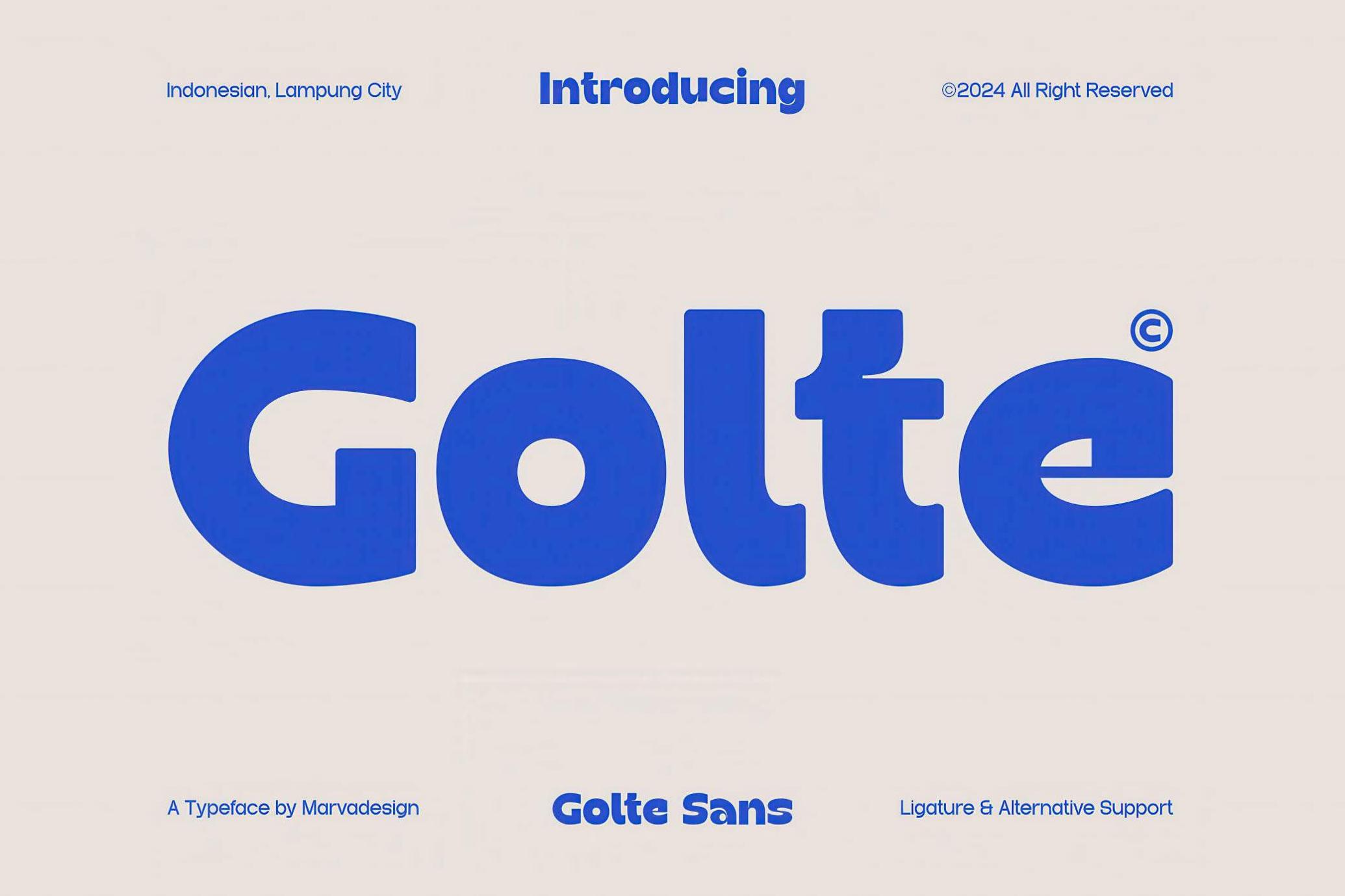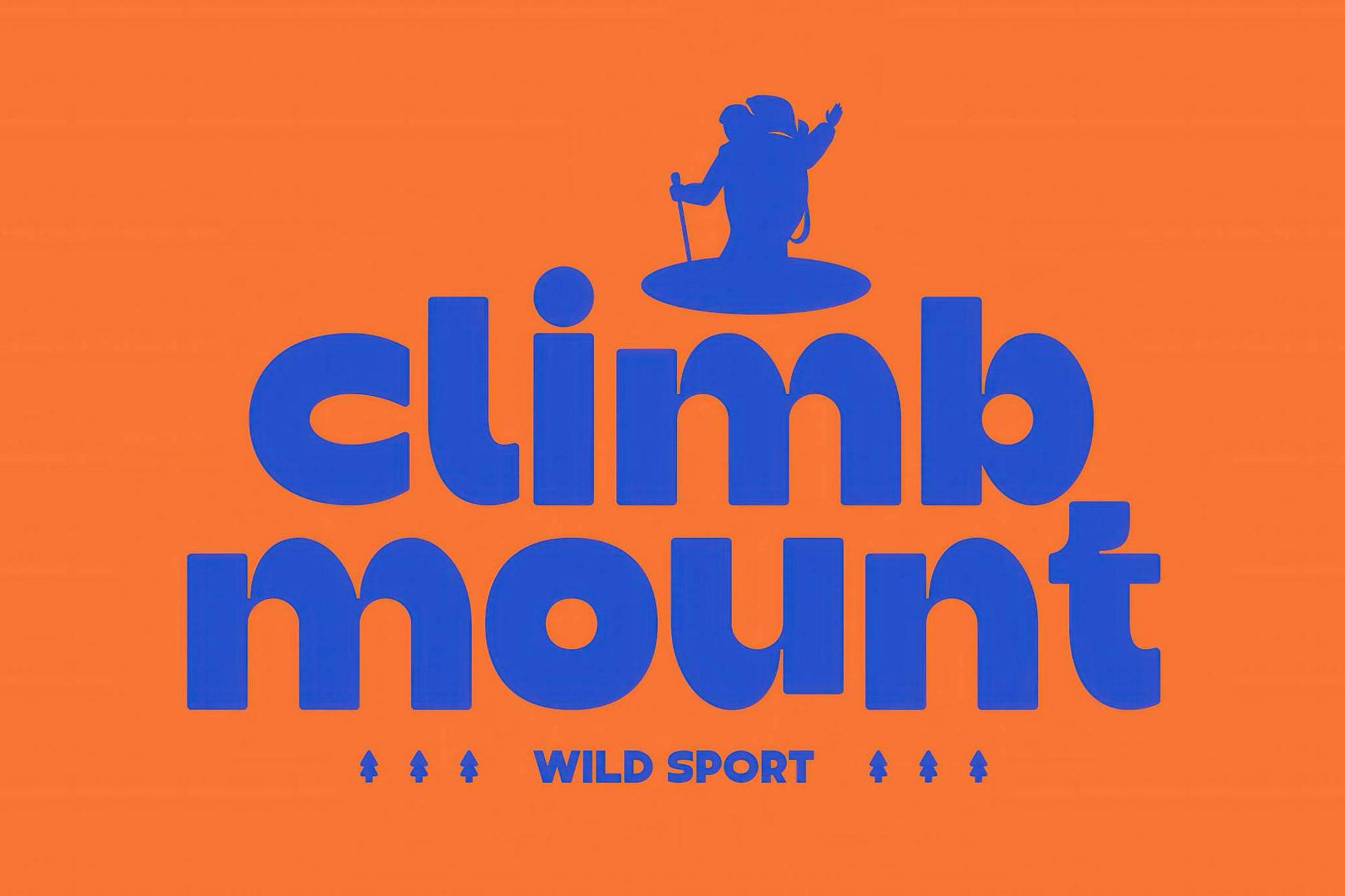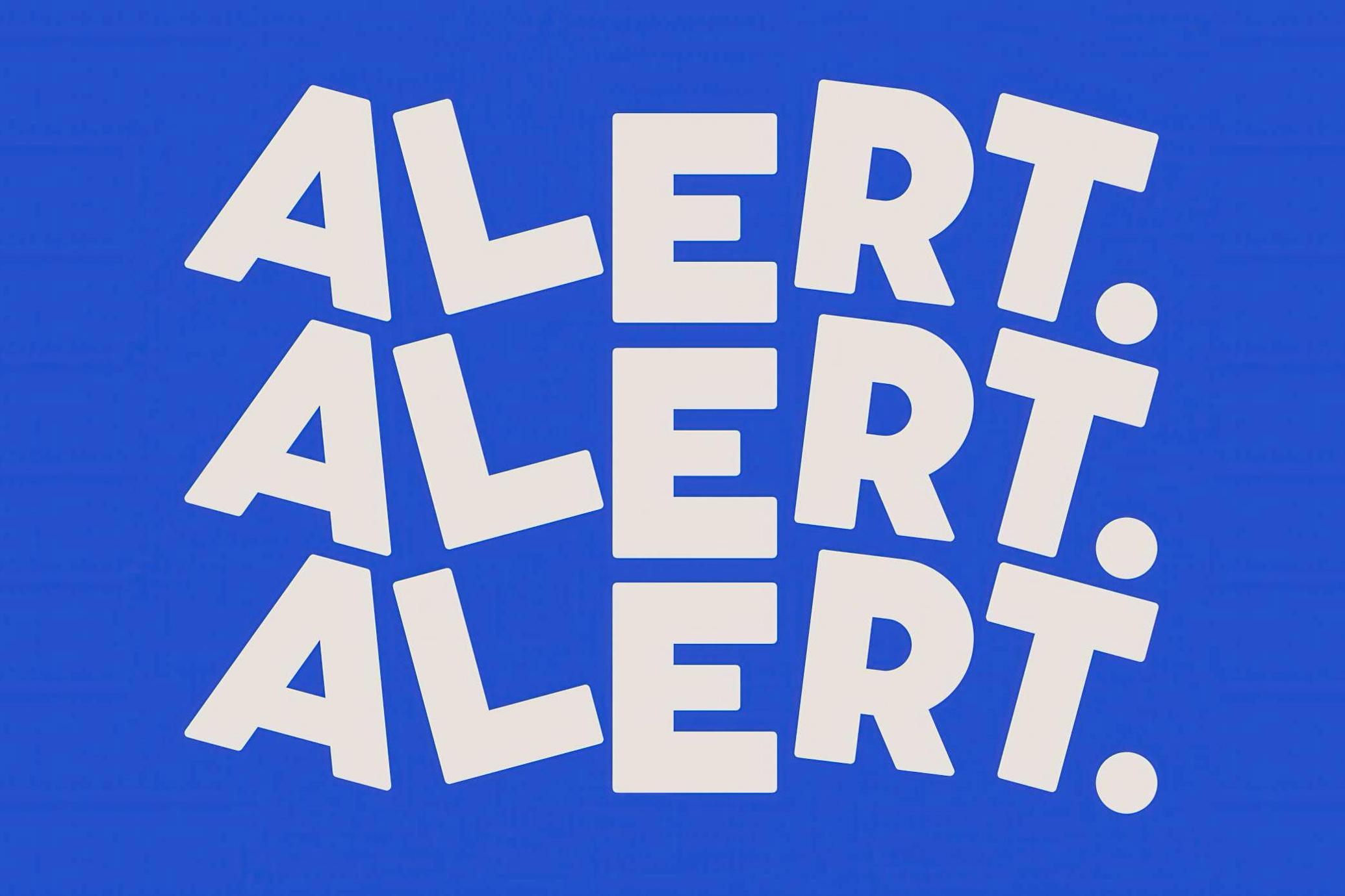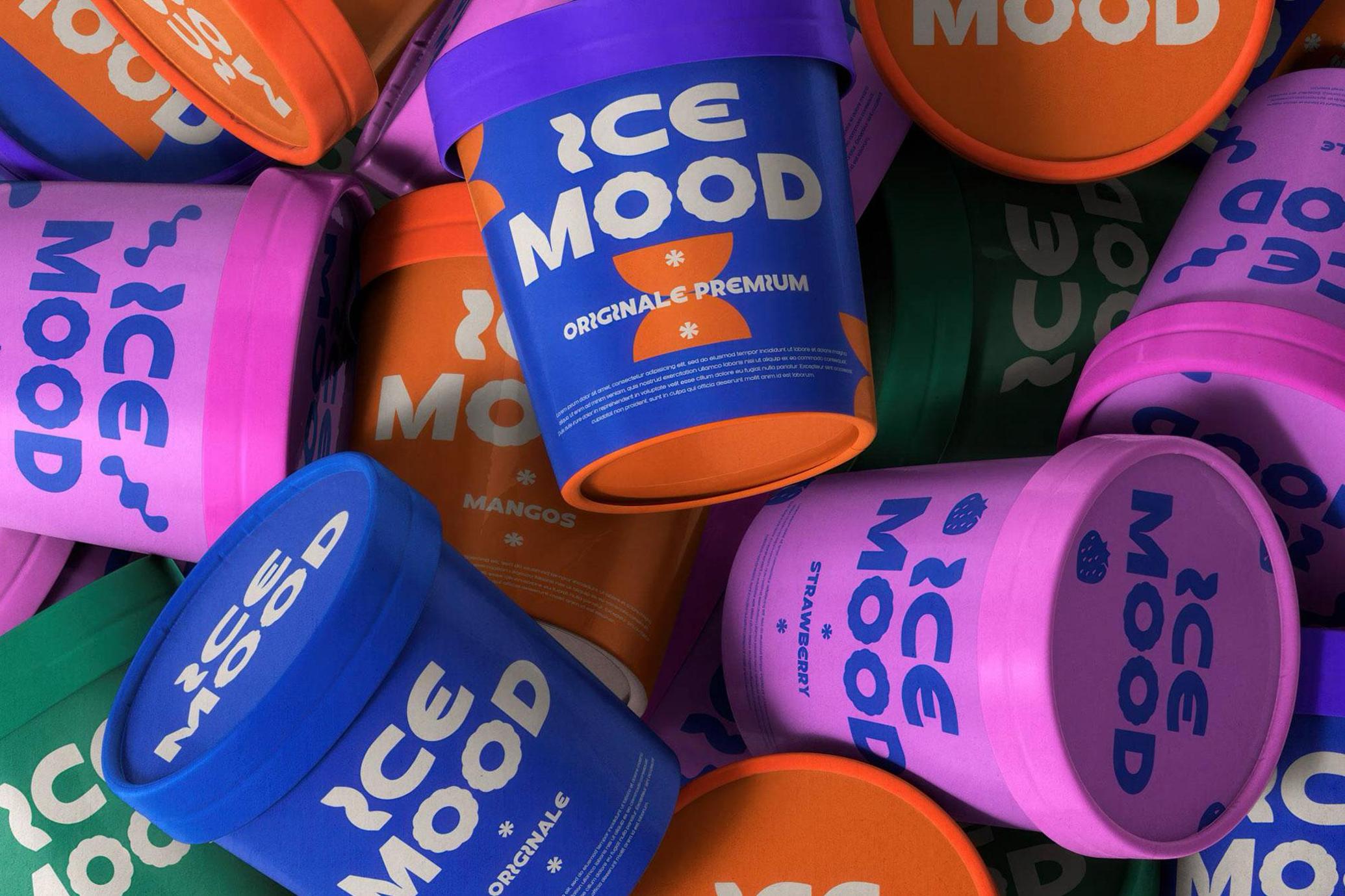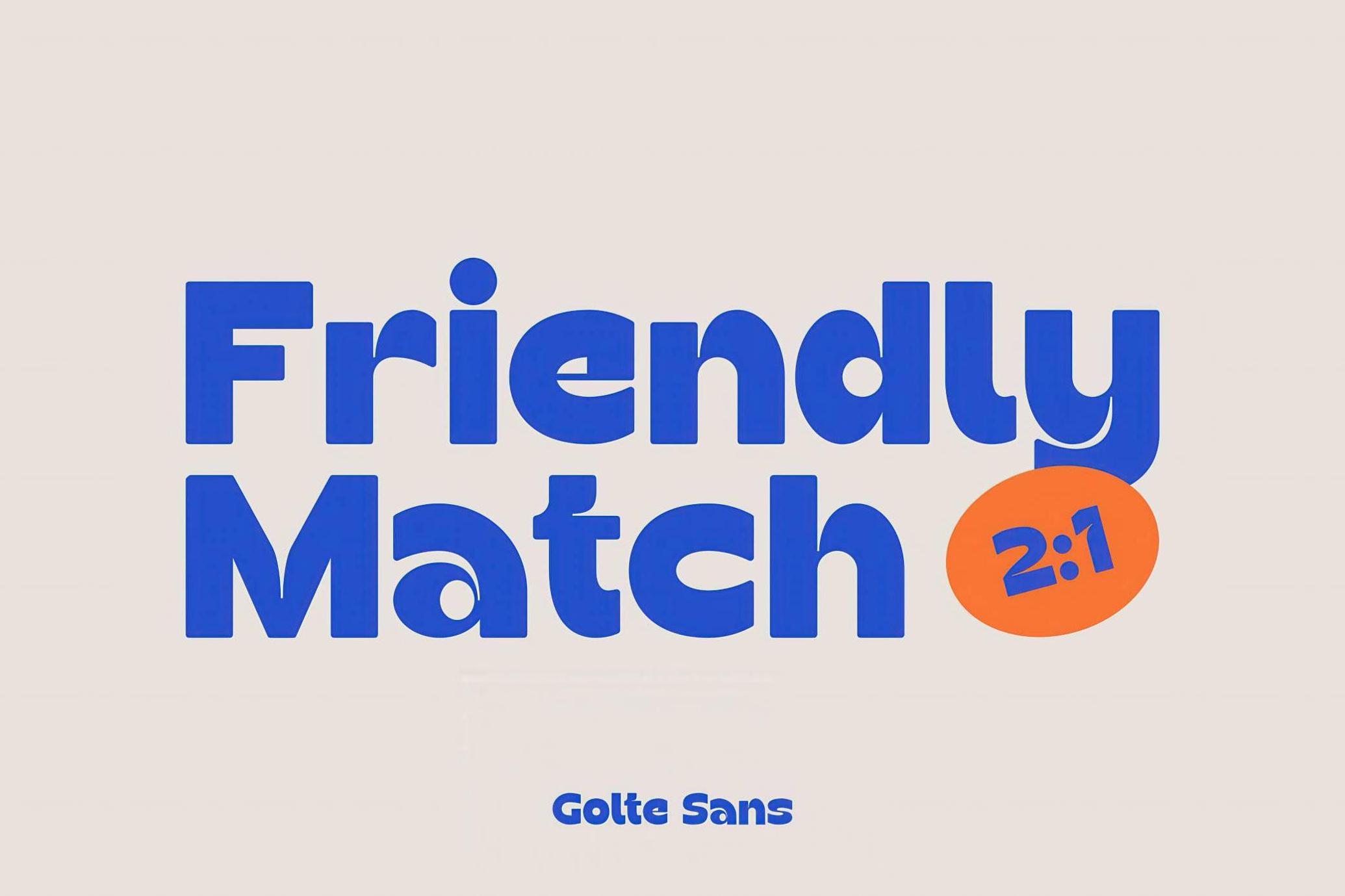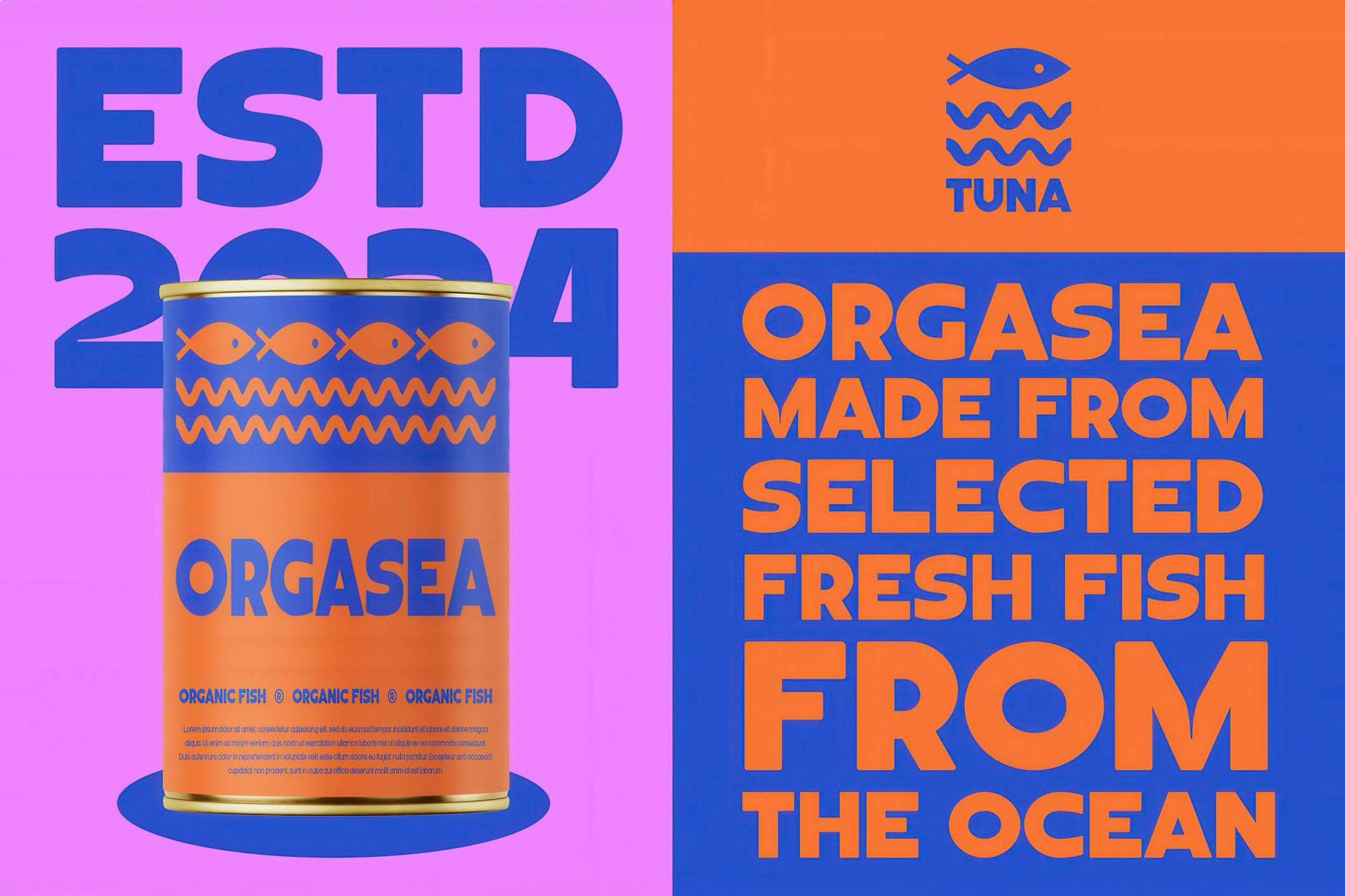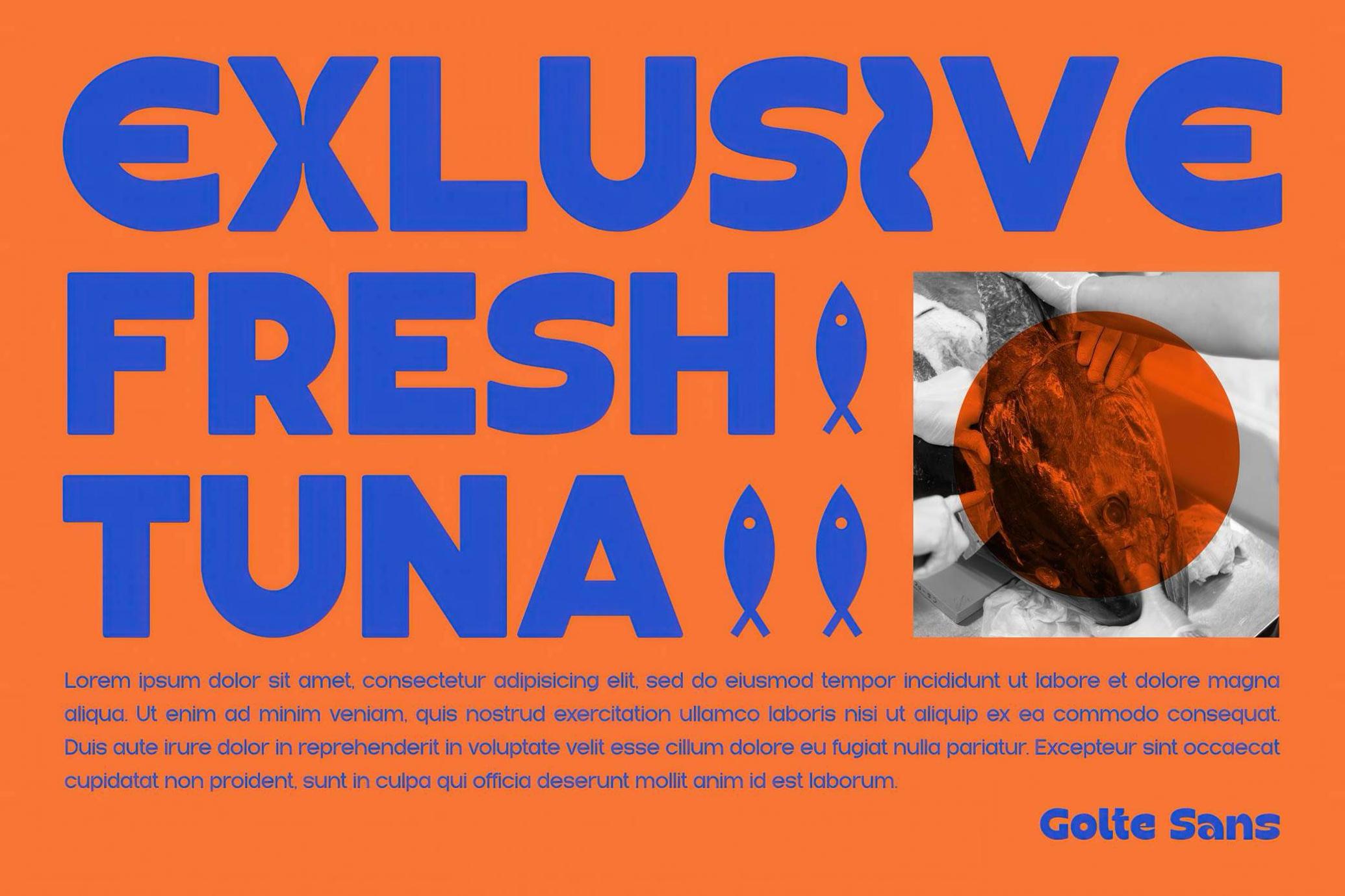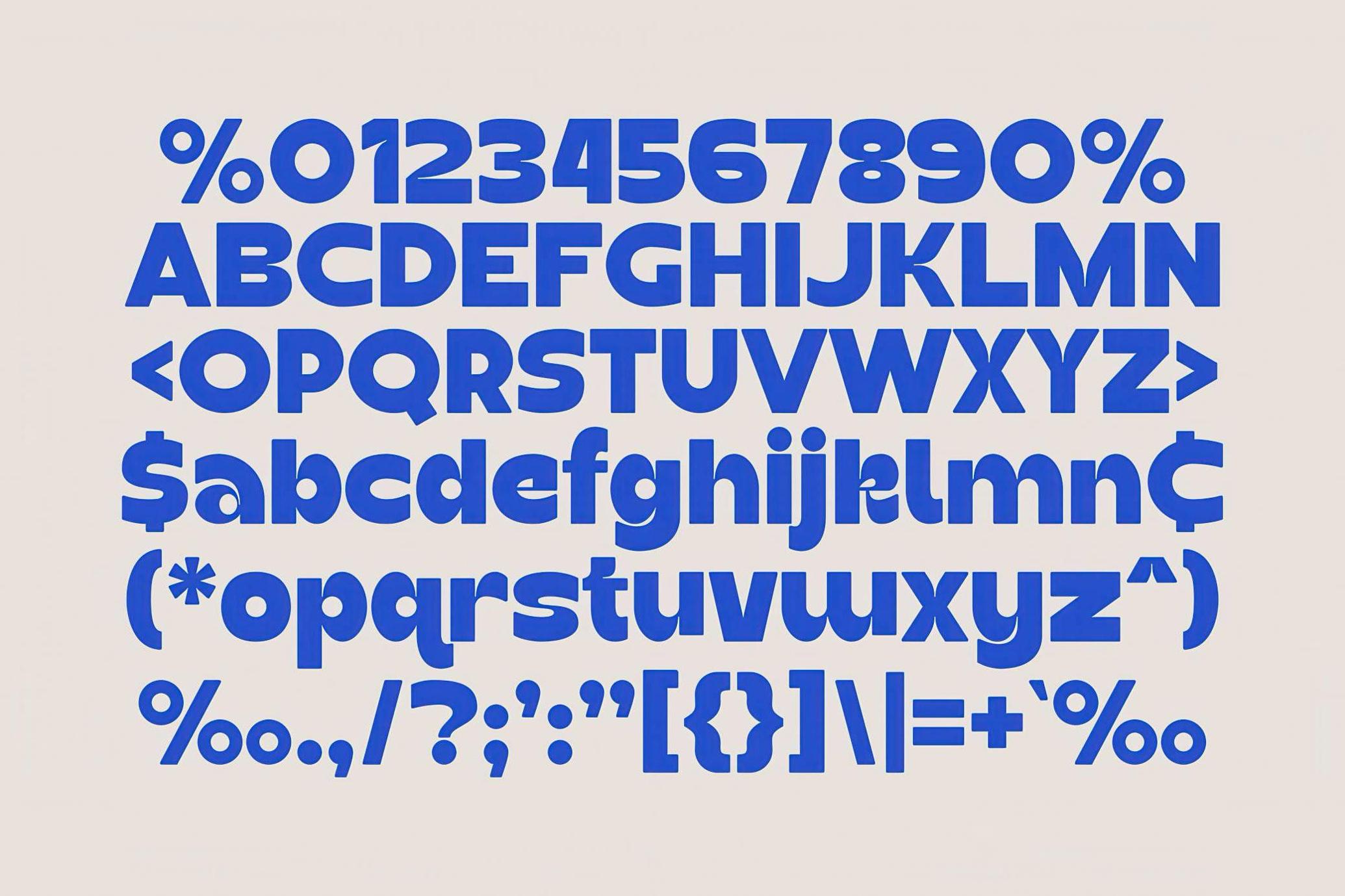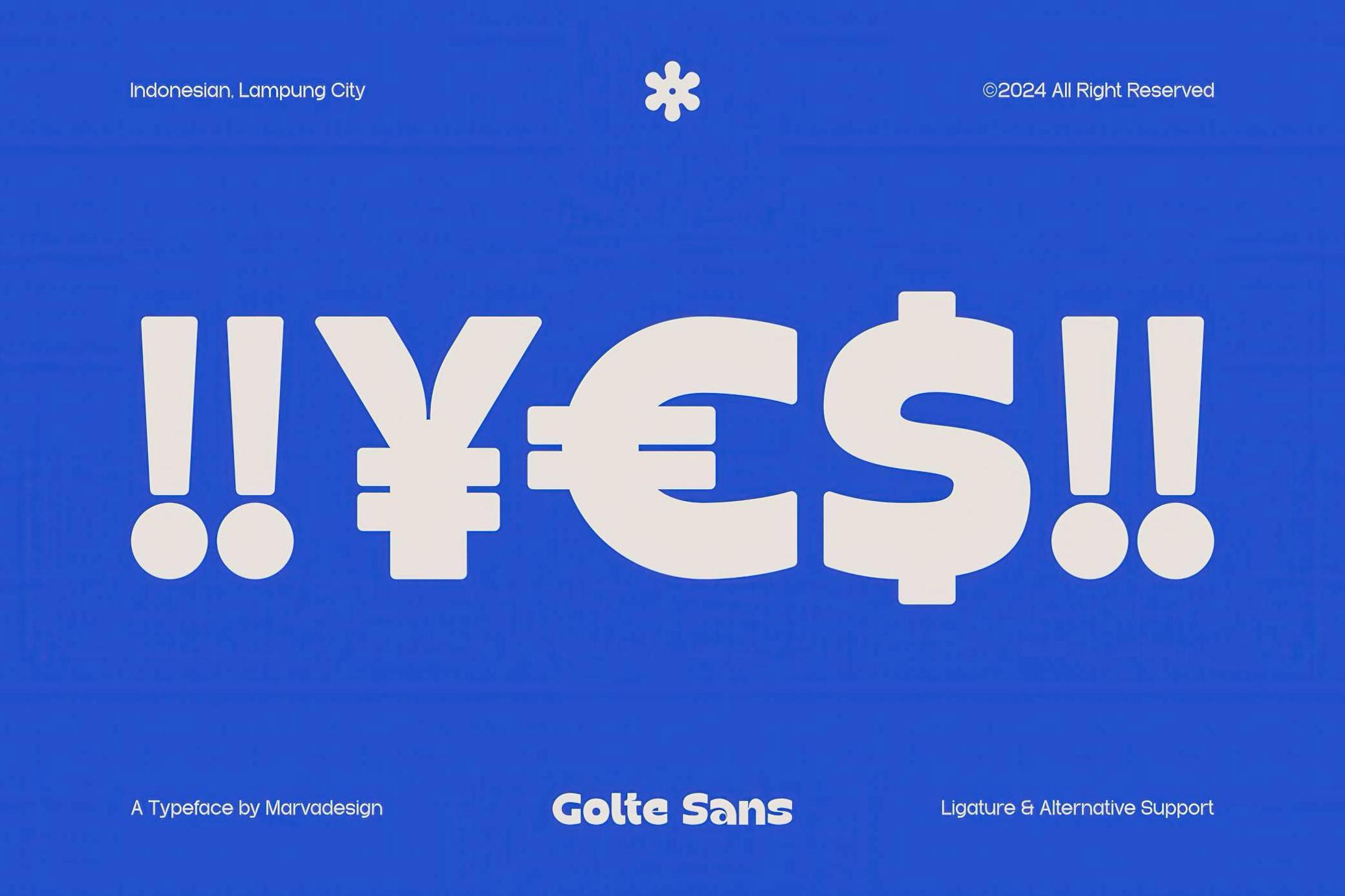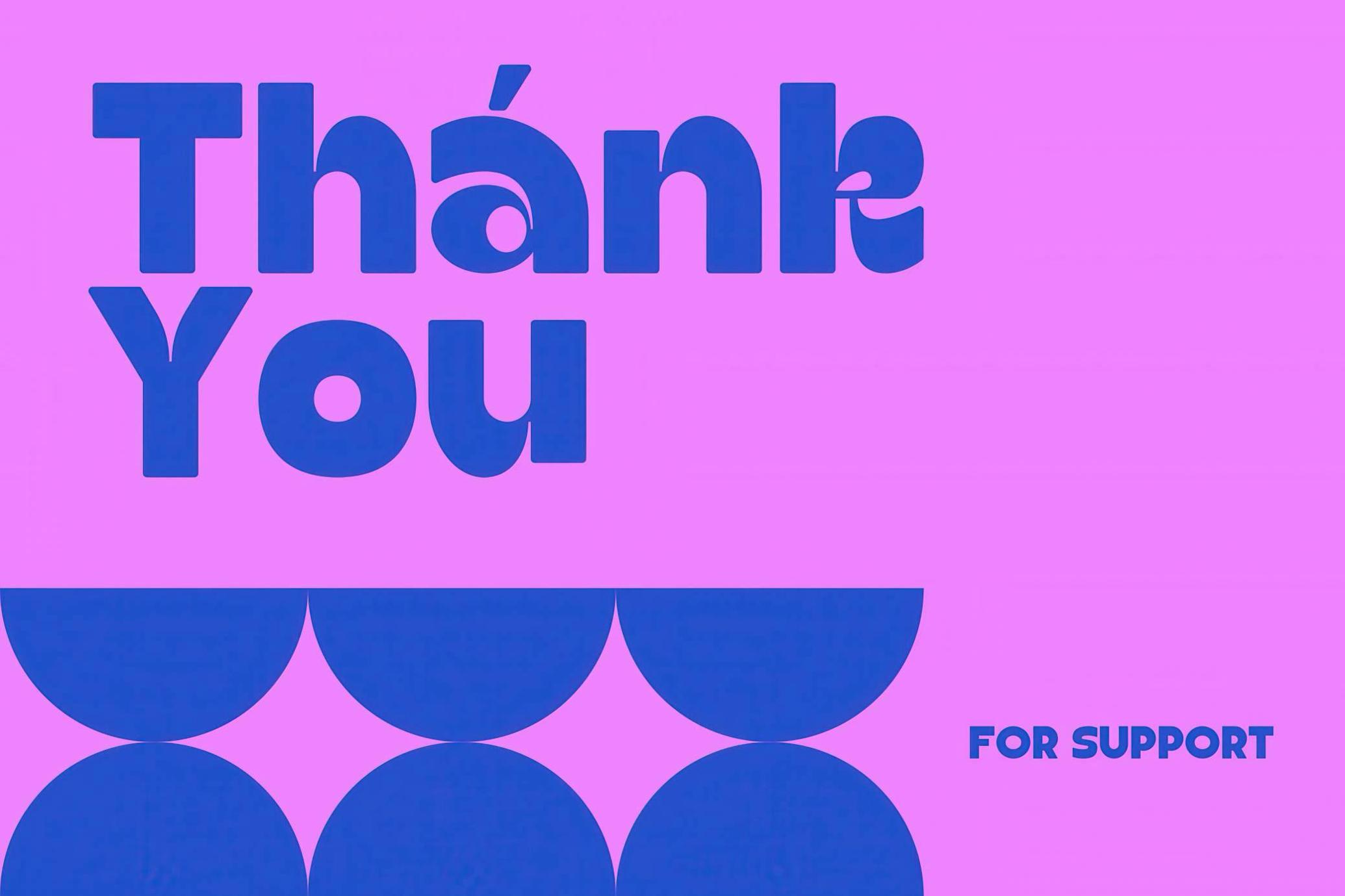
Golte Font
With its heavy curves, generous counters, and a slightly cheeky tilt, this modern sans serif drips with personality. Golte feels lifted from a 1970s science fair poster or the opening credits of a lost French New Wave flick. There’s a warmth to it too, like old print catalogs or signage from a world expo that promised flying cars and modular homes.
Golte thrives where clarity meets character. It’s bold enough to carry a headline solo, yet structured enough to work in systems — branding, packaging, signage, and punchy editorial spreads. The font comes fully equipped with uppercase, lowercase, multilingual support, and a curated set of ligatures to keep things flowing.